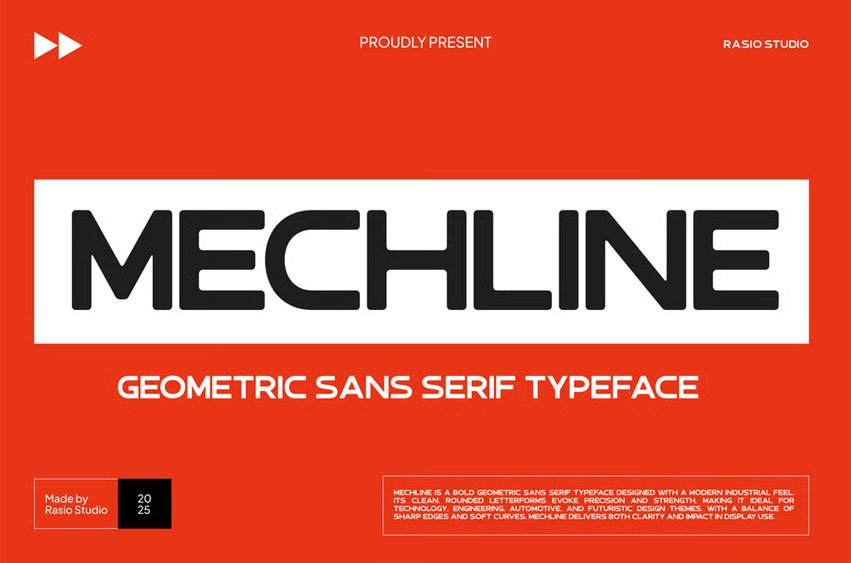
Mechline Font is a strong geometric sans serif font inspired by industrial strength, machinery precision, and modern engineering. With clean lines, uniform width, and powerful alignment, this typeface is built for clarity and bold presence. Ideal for construction branding, gear and automotive industries, or technical product displays, Mechline emphasizes performance and functionality while retaining a modern aesthetic. Perfect for both print and digital use in structured, impactful design.